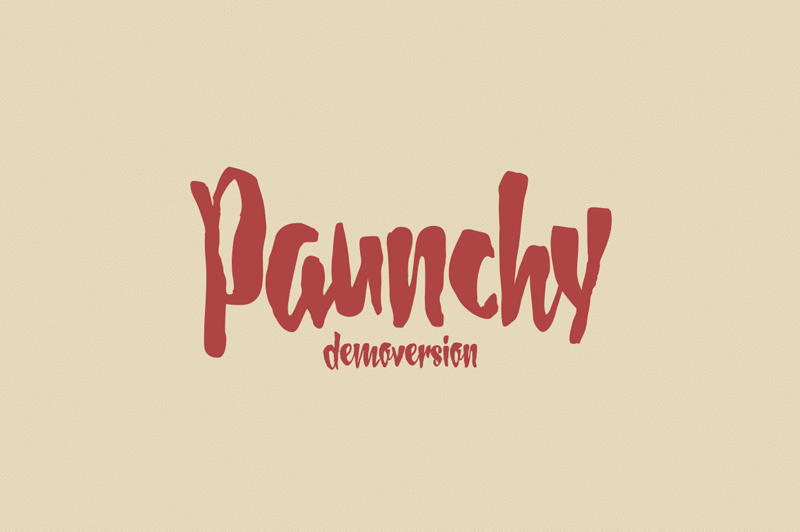
Font name: | Paunchy |
Author: | Mirco Zett |
Note by Mirco Zett | |
"Paunchy" is a playful and handlettered, calligraphy based font. Especially made for Logos and Headlines Fullversion available on MyFonts.com and Creative Market MyFonts.com http://www.myfonts.com/fonts/mirco-zett/paunchy/ Creative Market https://creativemarket.com/MircoZett/565992-Paunchy |